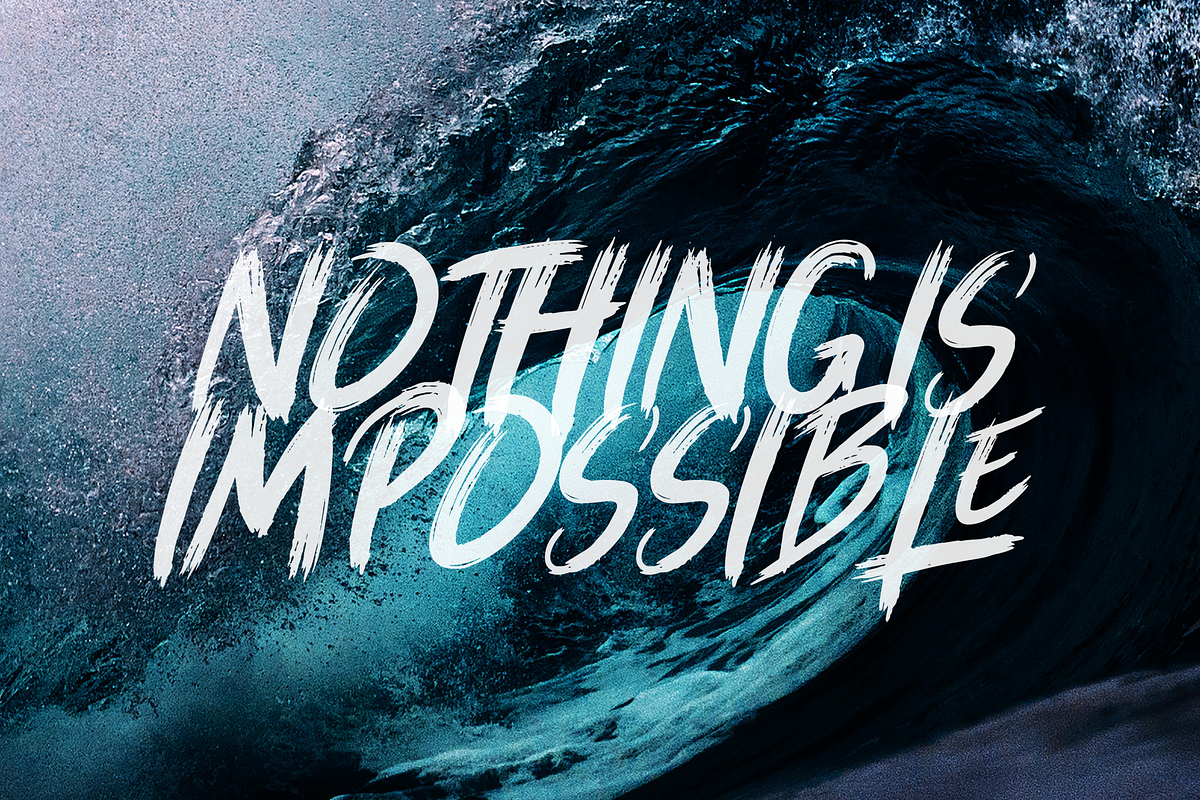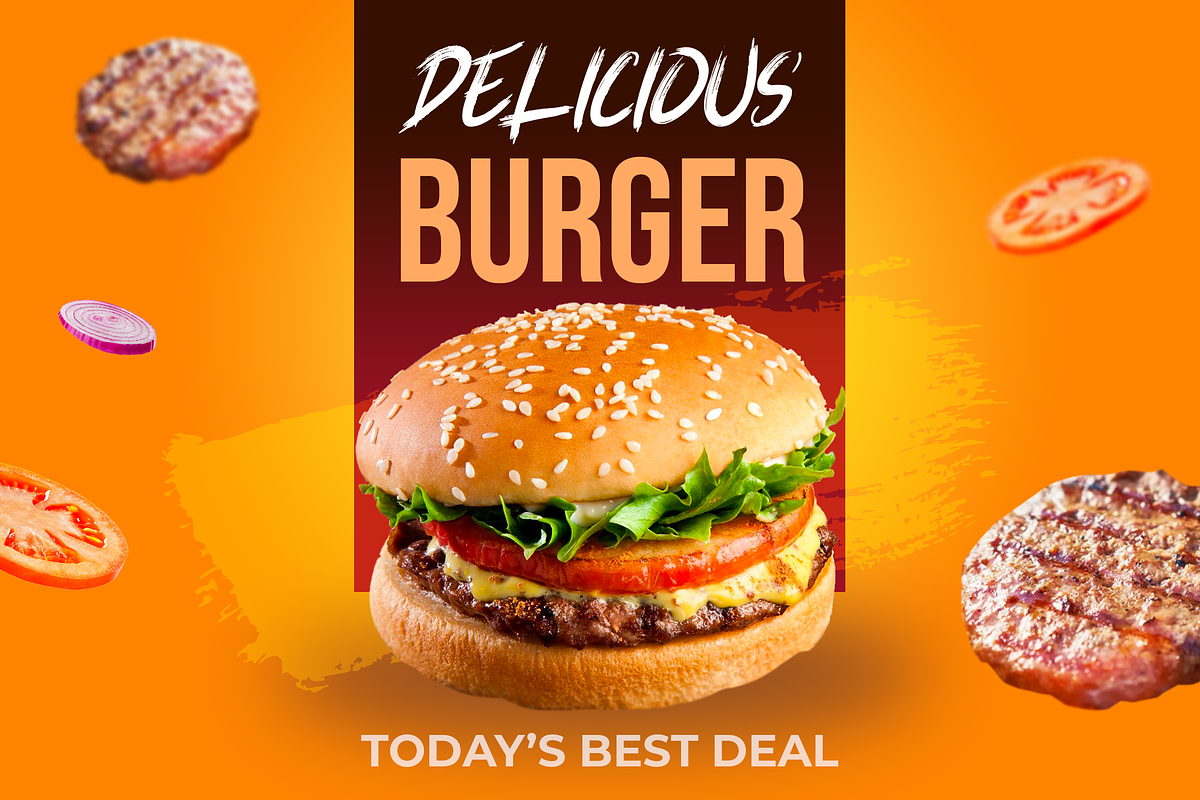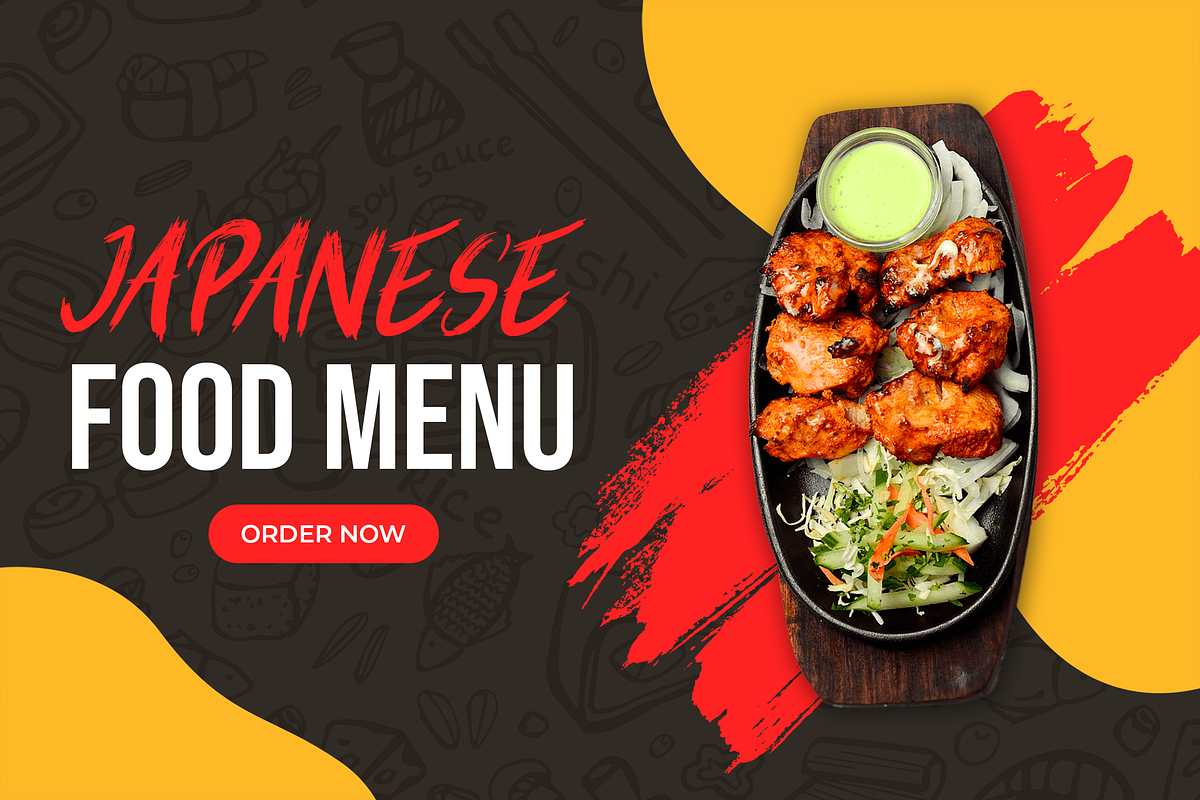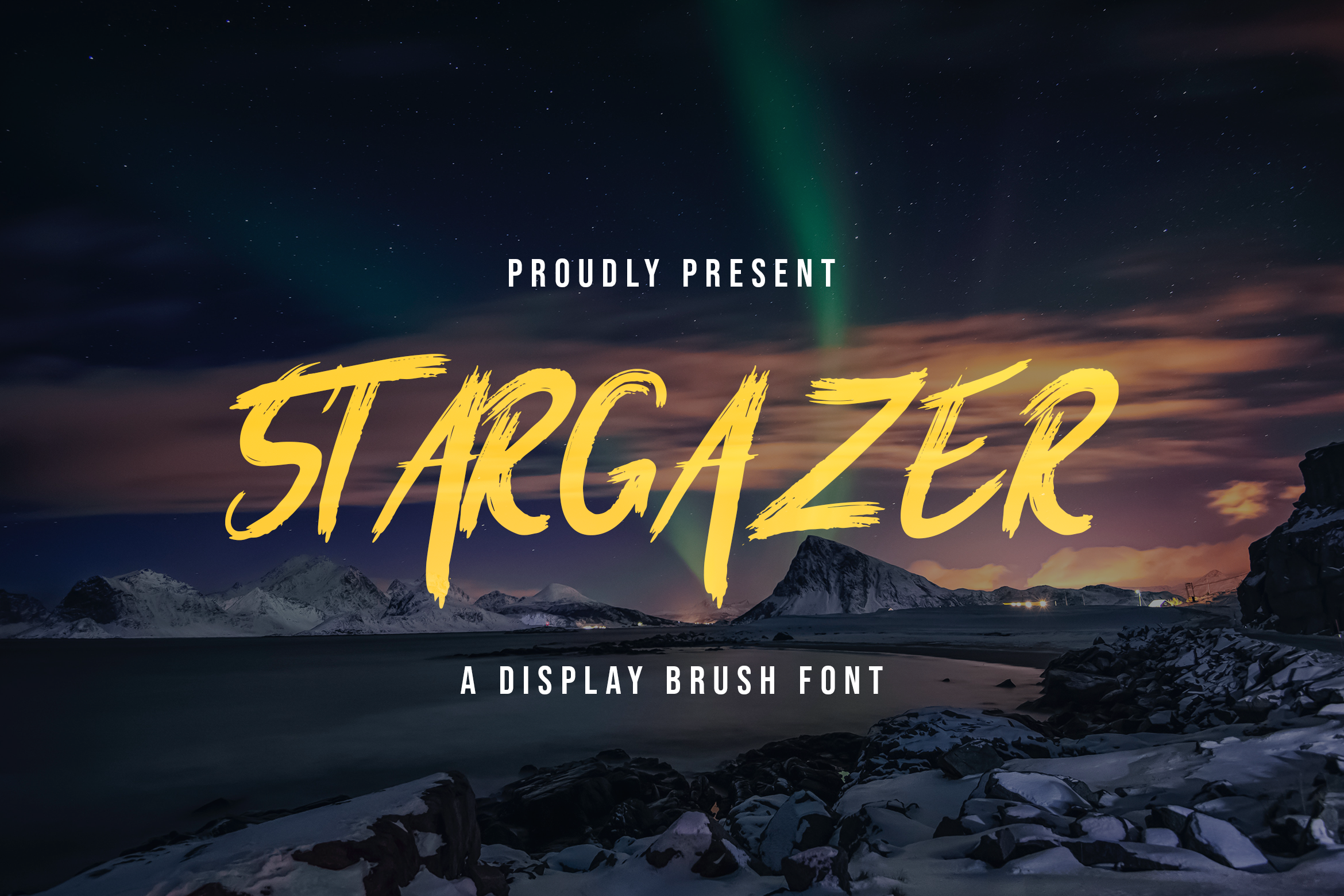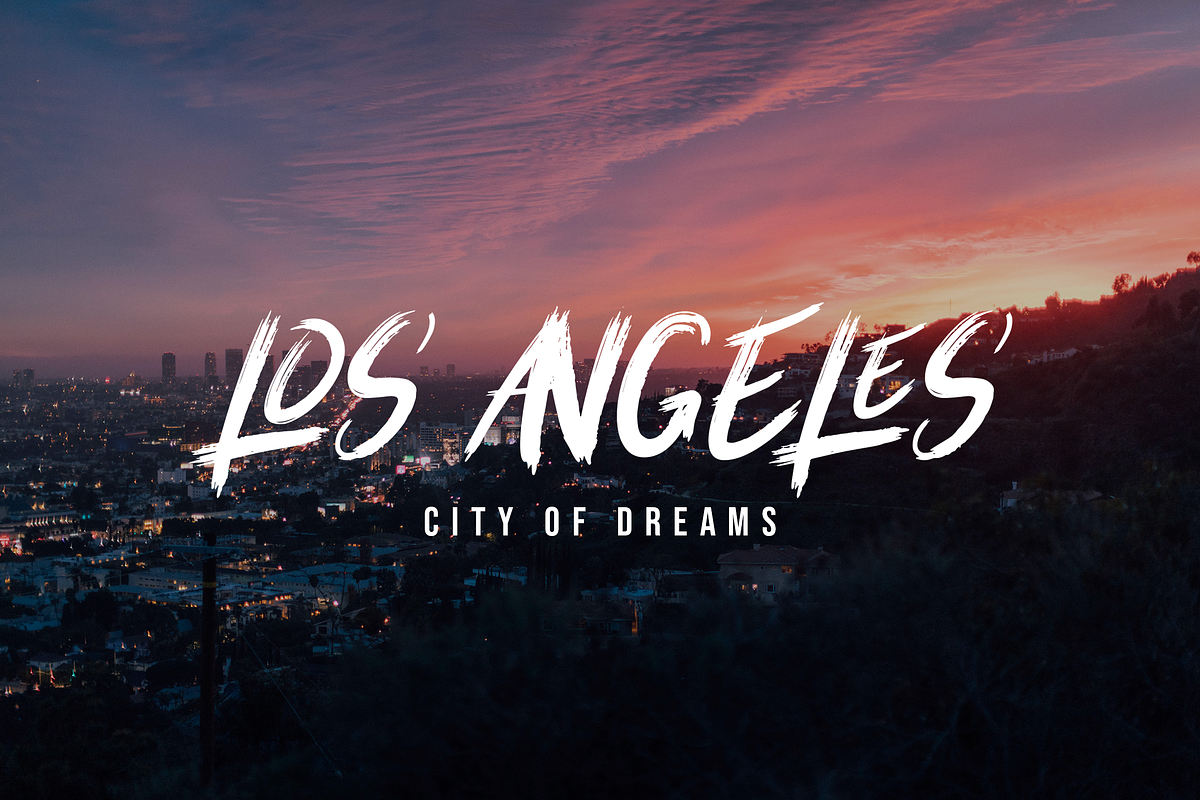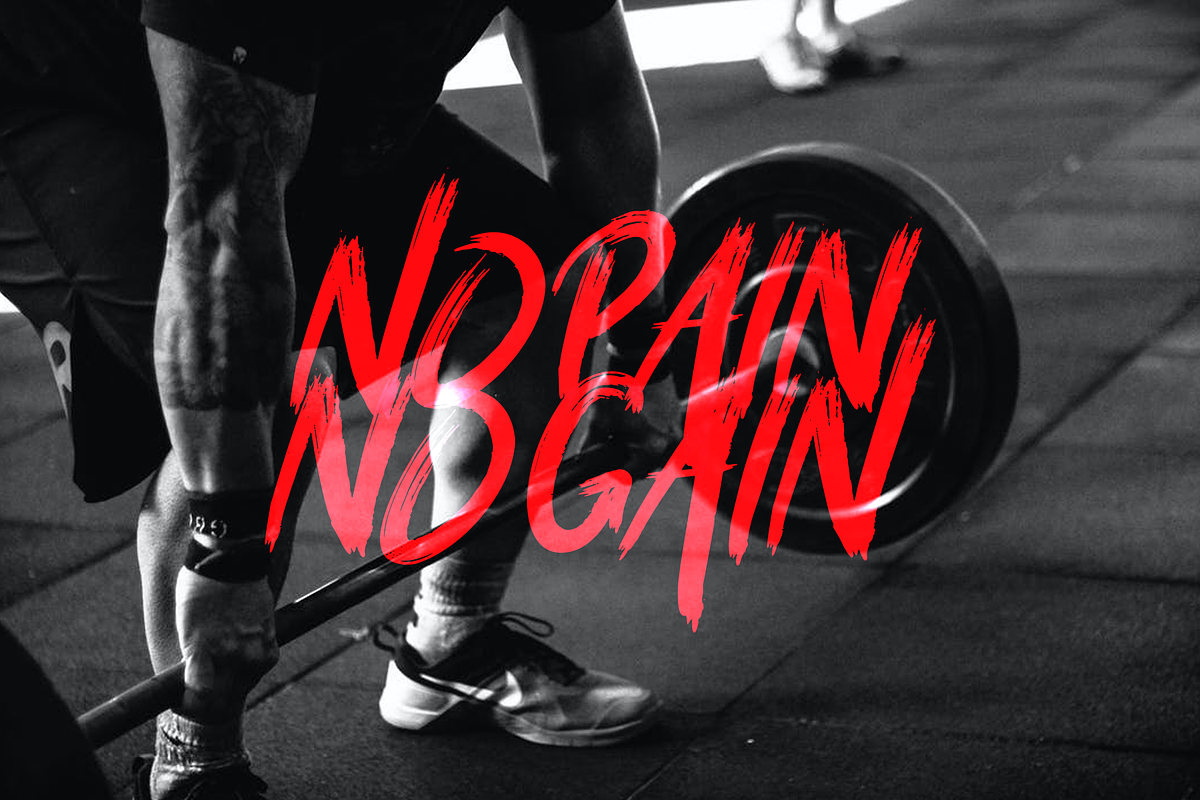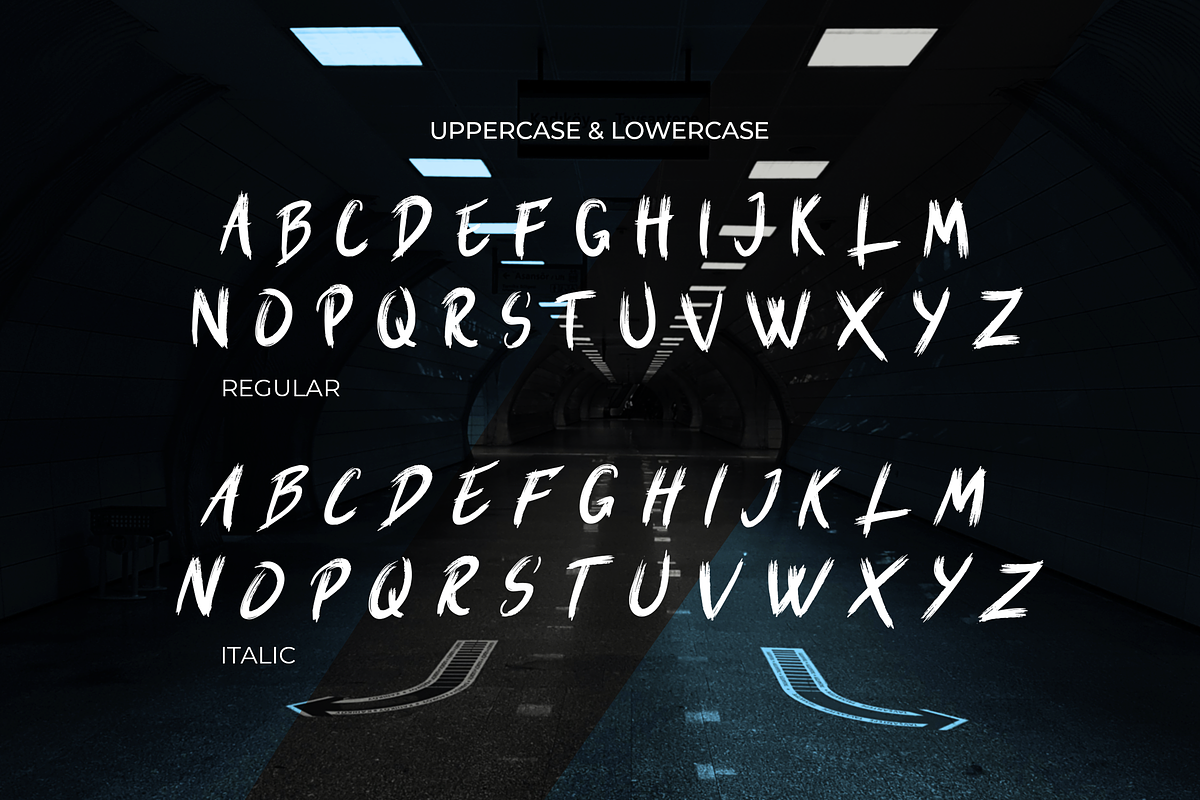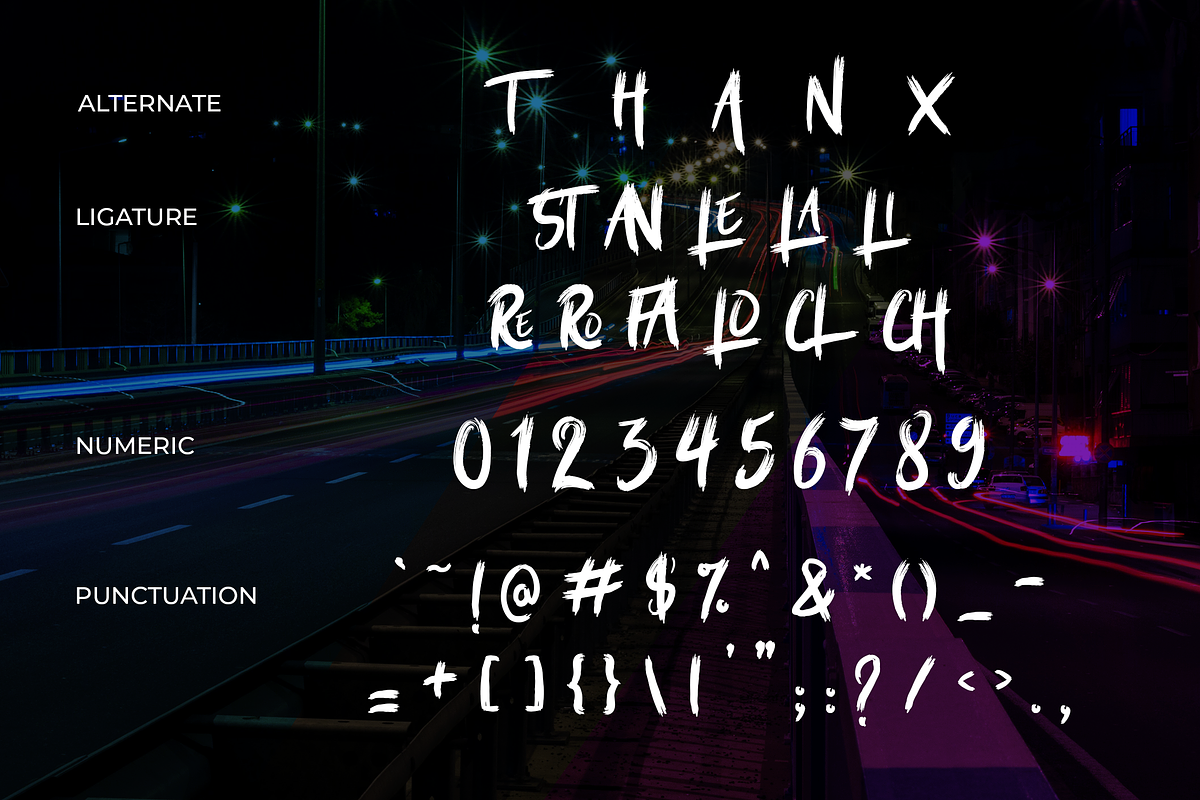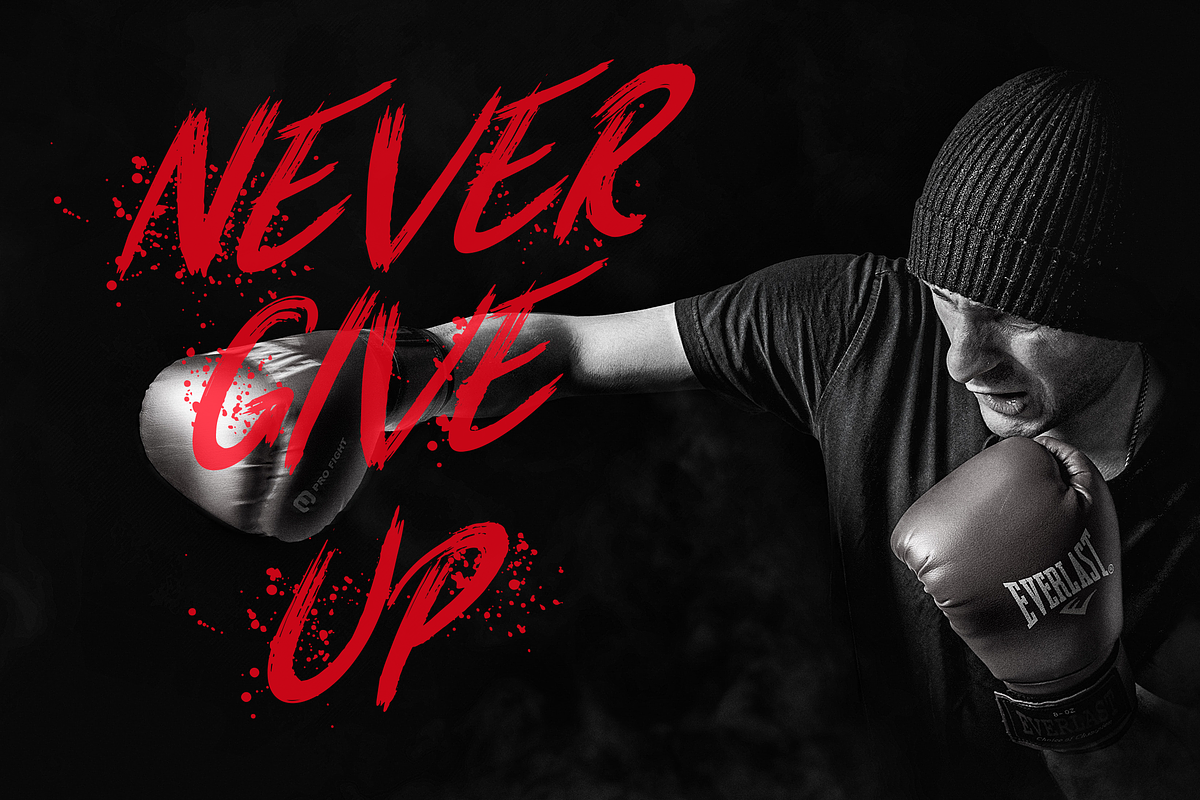
Stargaze - Creative Brush Font
Introducing Stargazer, is a Creative Brush Font has many purpose and suitable for graffiti, urban street, workouts, gym items, classic modern, logotype, advertising and much more
- Available Ligatures and Alternates